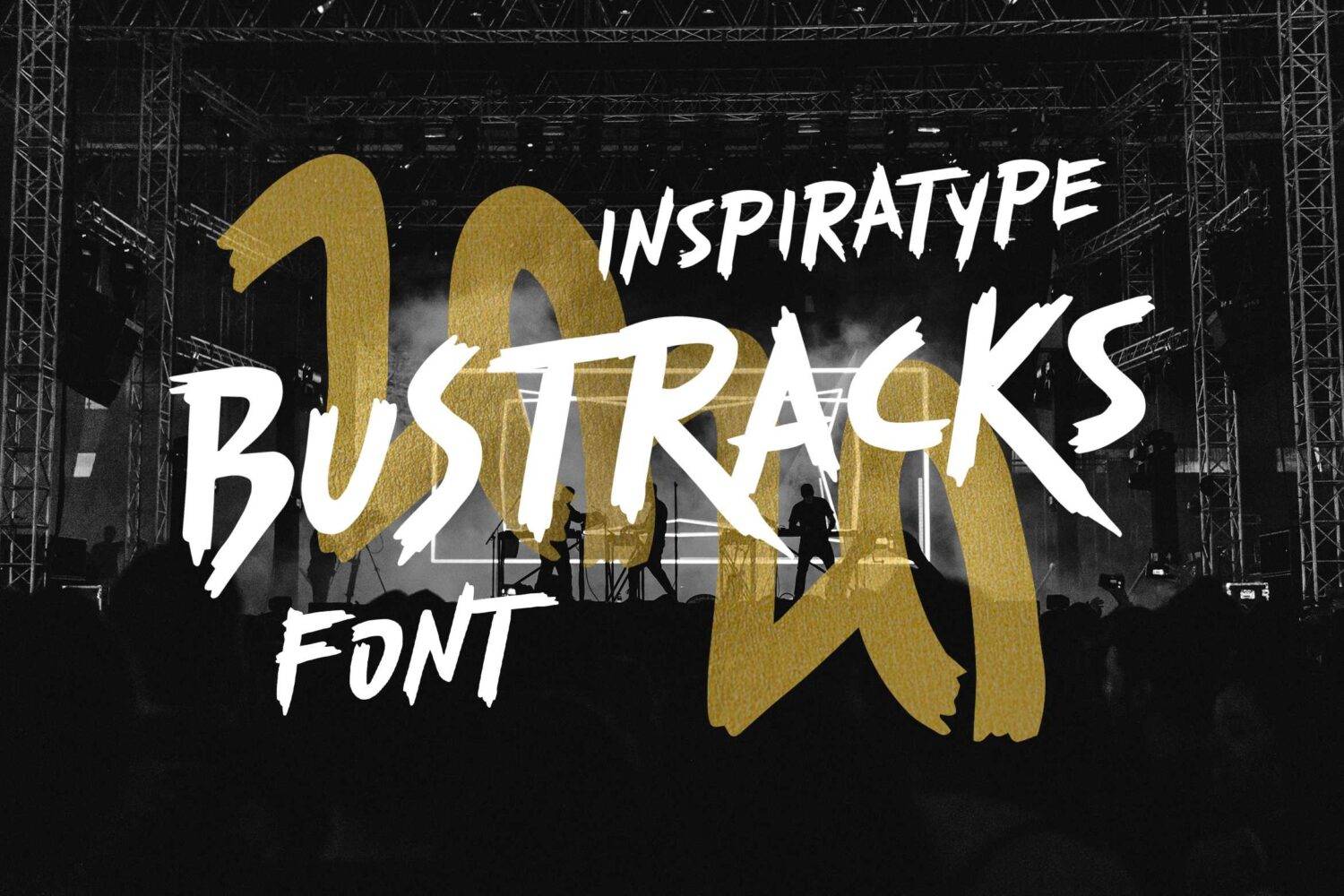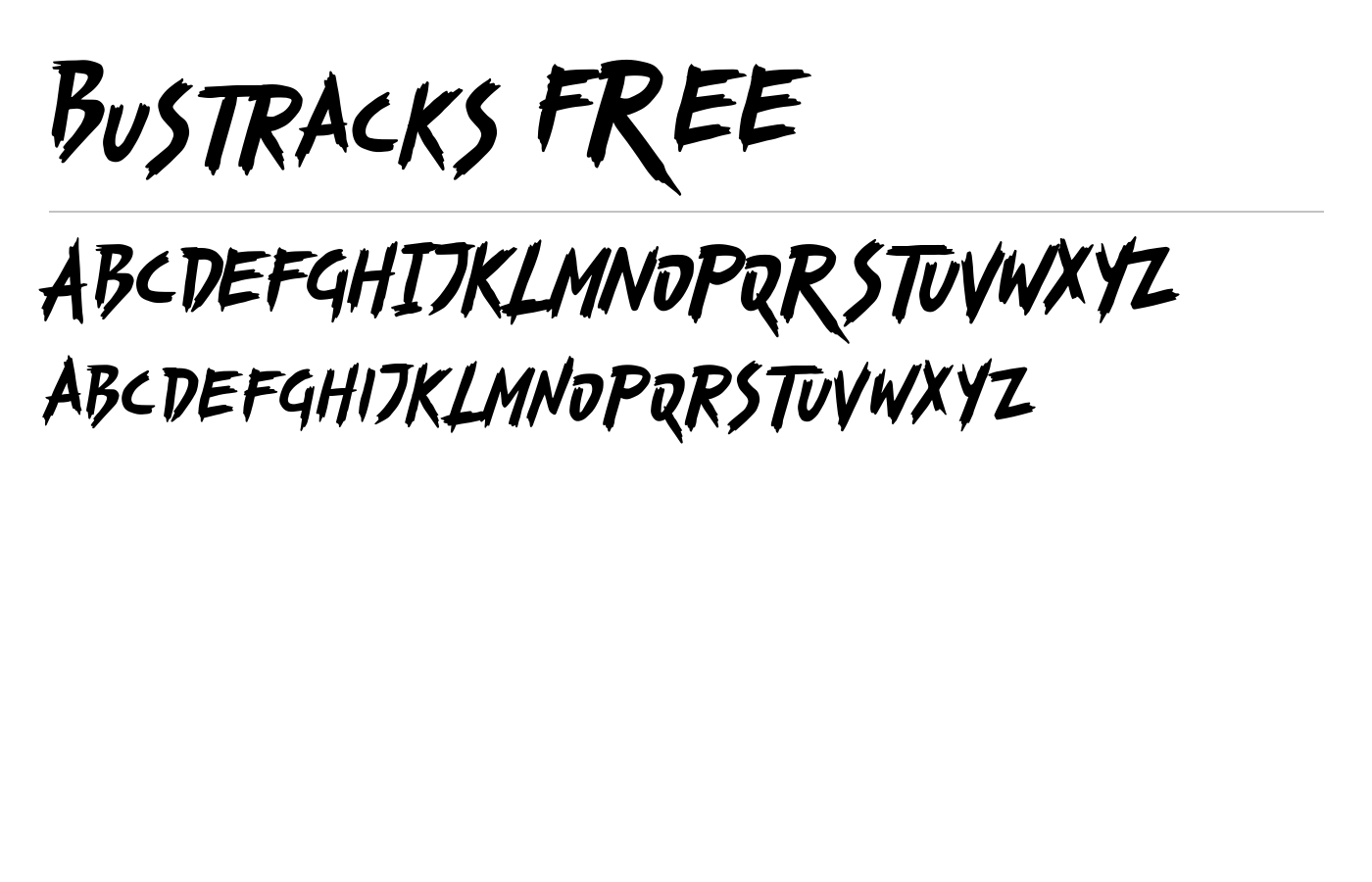
Bustracks Font is a bold, expressive handwritten typeface with sharp, jagged strokes that convey a dynamic and energetic feel. Its irregular, brush-like letter shapes give it a raw and edgy personality, making it ideal for eye-catching headlines, posters, and creative branding where a rebellious or adventurous tone is desired. This font works best in designs that want to stand out with a strong, informal, and artistic vibe.
Bustracks Font
About Bustracks Font
| Font family | Bustracks Font |
| Designer | Inspiratype |